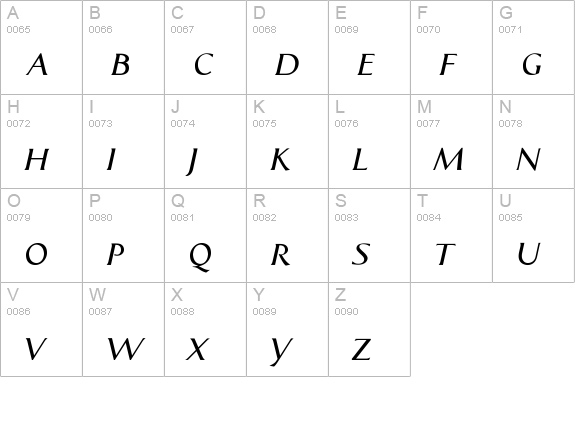
Aperto SemiBold Italic is a sub-bold, structured, italic variant in the Aperto typeface family \xE2\x80\x94 well suited to sub-headlines and emphasised passages.
Aperto SemiBold Italic is a modern and stylish font that exudes confidence and sophistication. Its sleek design and slanted posture convey a sense of dynamism and energy, making it perfect for projects that require a bold and eye-catching aesthetic. This versatile typeface is ideal for a wide range of design applications, from branding and advertising to editorial and web design. The semi-bold weight adds a touch of emphasis and authority, while the italic styling injects a sense of flair and elegance. What sets Aperto SemiBold Italic apart is that it is not only visually striking but also freely available to download at FontsMarket.com. This means that you can easily access this high-quality font without any cost, making it a valuable addition to your design toolkit. Whether you're working on a logo, poster, website, or any other project that demands a touch of sophistication and creativity, Aperto SemiBold Italic is sure to make a bold statement and leave a lasting impression. Download it today and elevate your designs with this exceptional typeface.